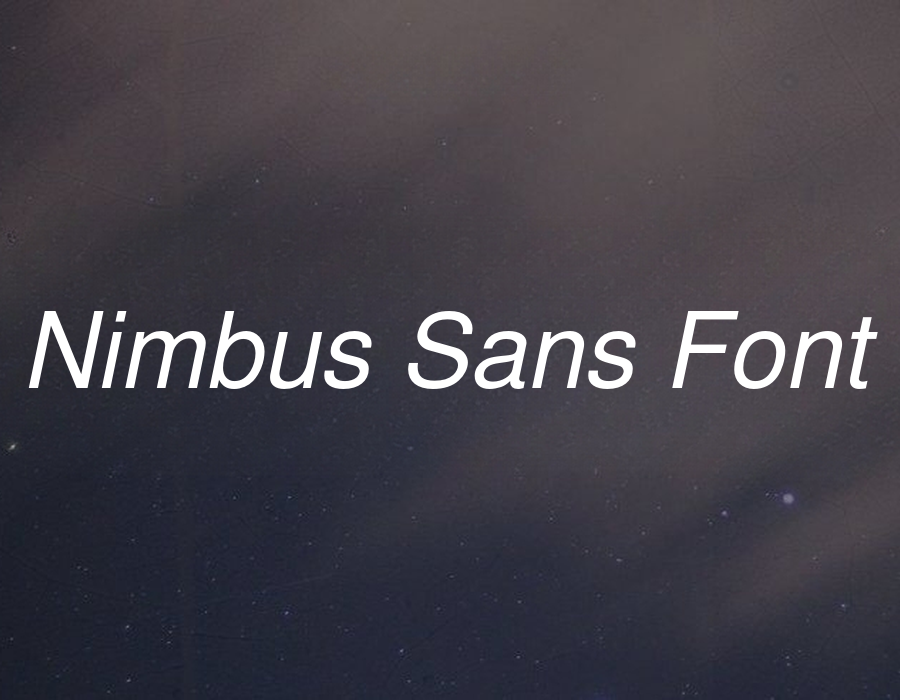
Nimbus Sans font is a clean and ultra-modern typeface that comes in the largest sans serif typeface family with a total of 59 styles. This super-quality was created and released through a German-based foundry called URW++. This typeface was designed based on the Helvetica font but it attempts to remove up some other mistakes of the original Helvetica font. This typeface has a big variety of cuts including extended and condensed versions.
Some of the versions have a history earlier than Helvetica’s first release such as Nimbus Sans bold condensed, Nimbus Sans bold condensed (D) were dated 1940; Nimbus Sans Black Condensed, Nimbus Sans Black Condensed (D) were dated 1946.
There are the most famous versions of this typeface that has been highly liked and used by every other Corporation and designer including Nimbus Roman No9 L, Nimbus Sans L, and Nimbus Mono. These versions are completely compatible with Helvetica, Courier, and Times and fully support the WGL4 characters but only some interrobang and super and script symbols are missed.
Usage of Nimbus Sans Font
This typeface has been used on many notable places, websites, and companies for different types of designing purposes. It is very legible both on display and print media due to its clear readability. You can apply this astonishing design to your webpage designs, social media posts, advertising purposes, publishing, and promotional projects. You can create high-quality logos, book covers, posters, banners, brochure layouts, and many more.
Nimbus sans is extremely considered for any size of texture content and it is great for lengthy and even better on short paragraphs. You can use it for huge or small texts for example website headings, product titlings, quotes, post descriptions, store/shop names, content, resumes, letterheads, magazines and newspaper headings, assignments, and so on.
Nimbus Sans Font
What font goes well with Nimbus Sans font?
This font can also be used with the pairing of many other typefaces but Nimbus Roman font best goes with this typeface.
What type of font is Nimbus Sans font?
This is a high-quality clean and modern sans-serif typeface that comes in a huge 59 styles. It was designed based on the Helvetica font but it attempts to remove up some other mistakes of the original Helvetica font. It was designed and shared by URW++.